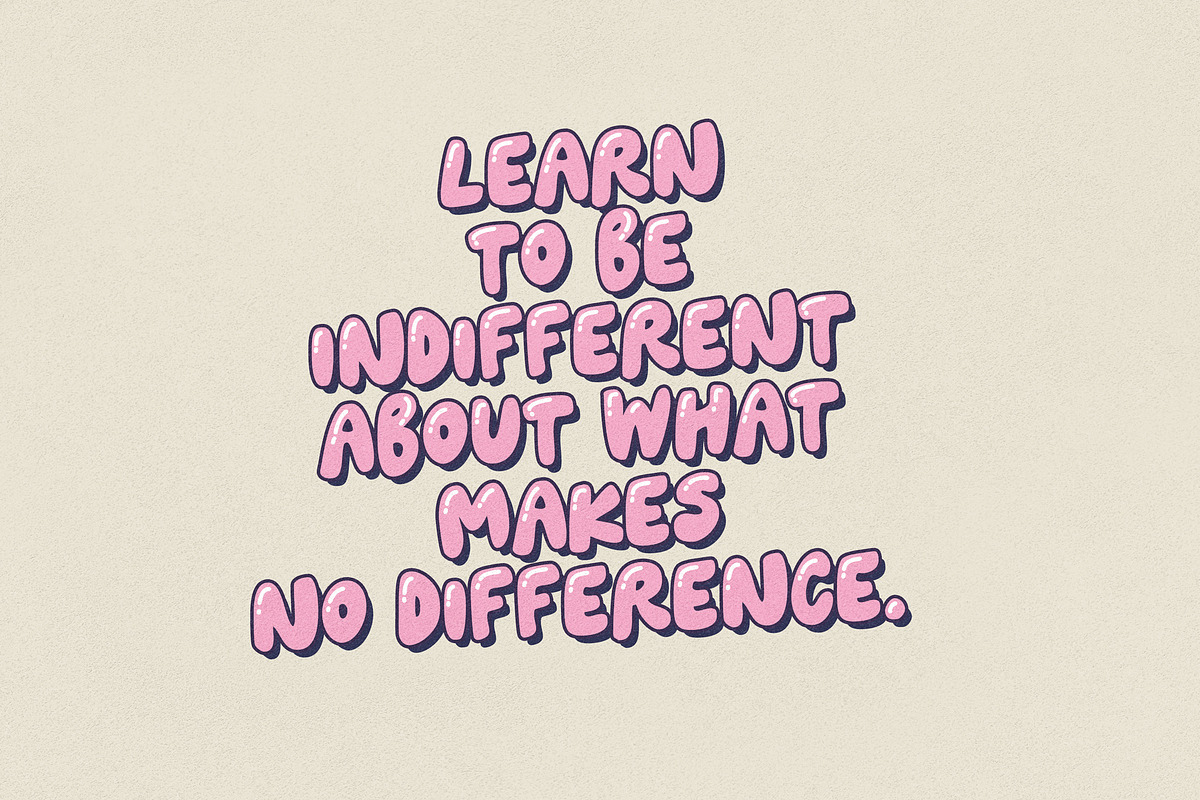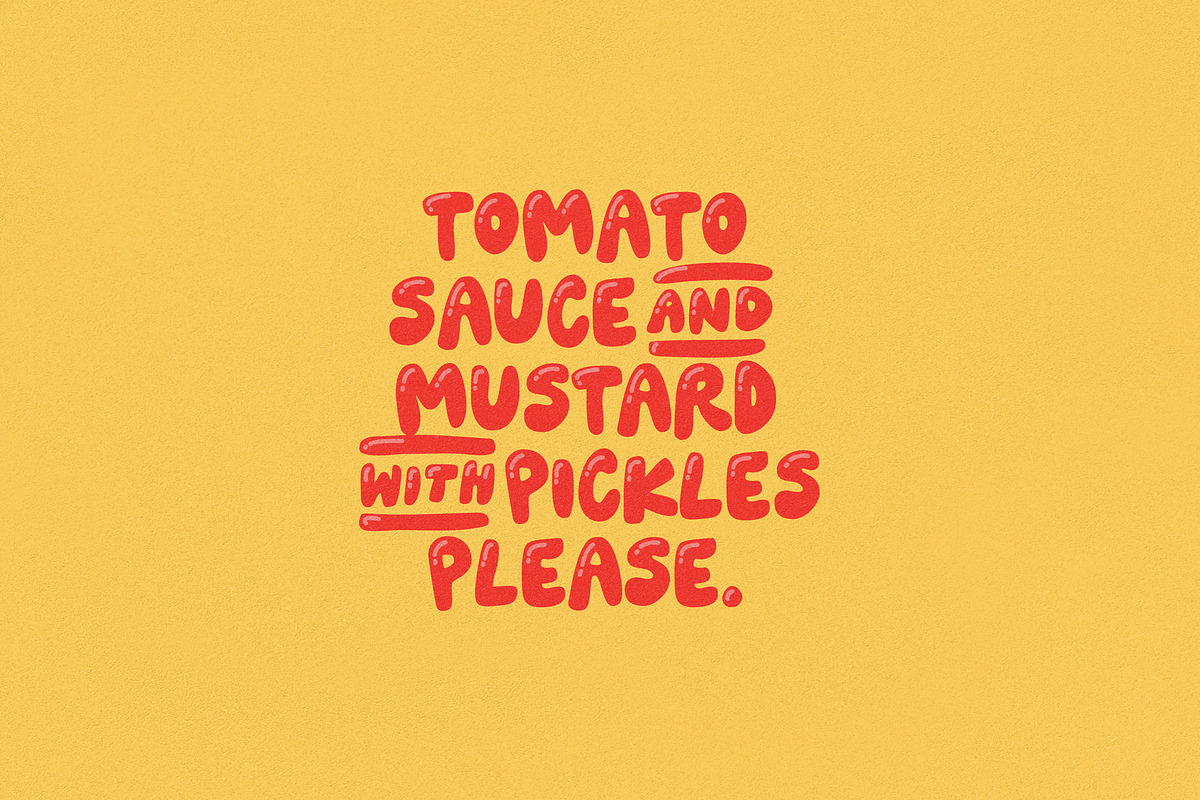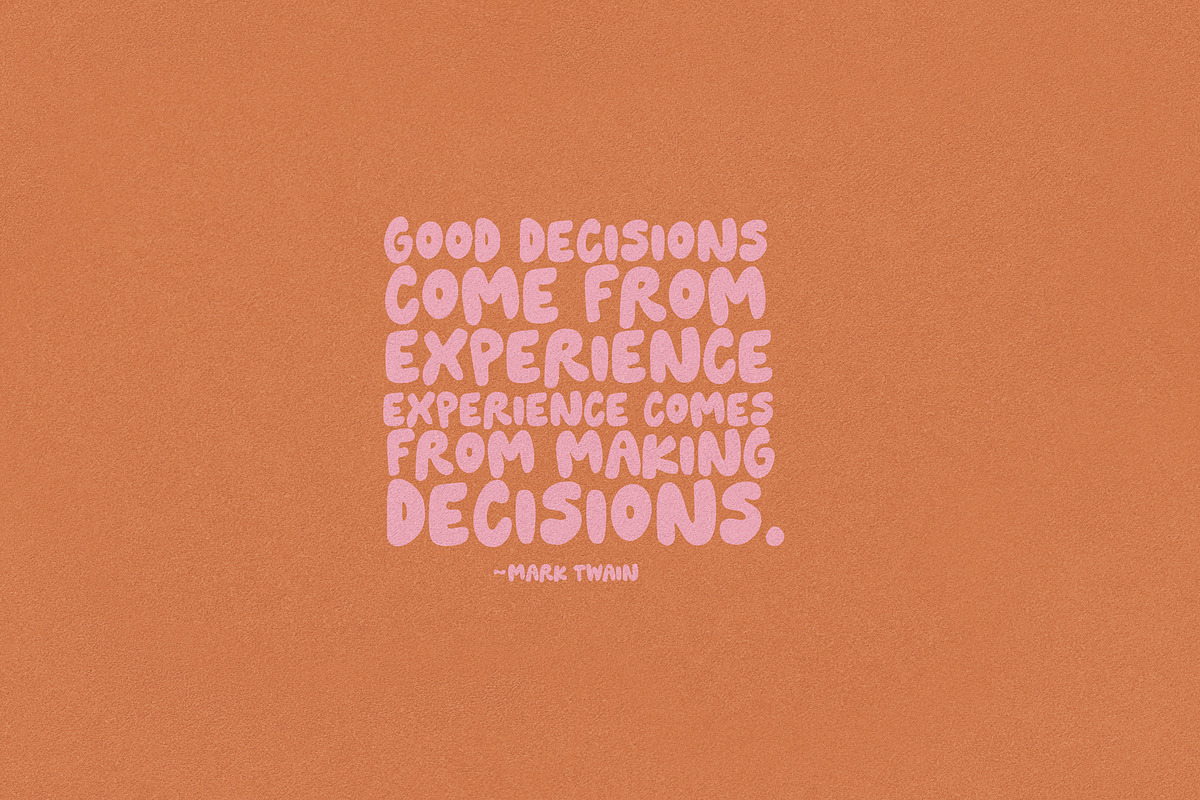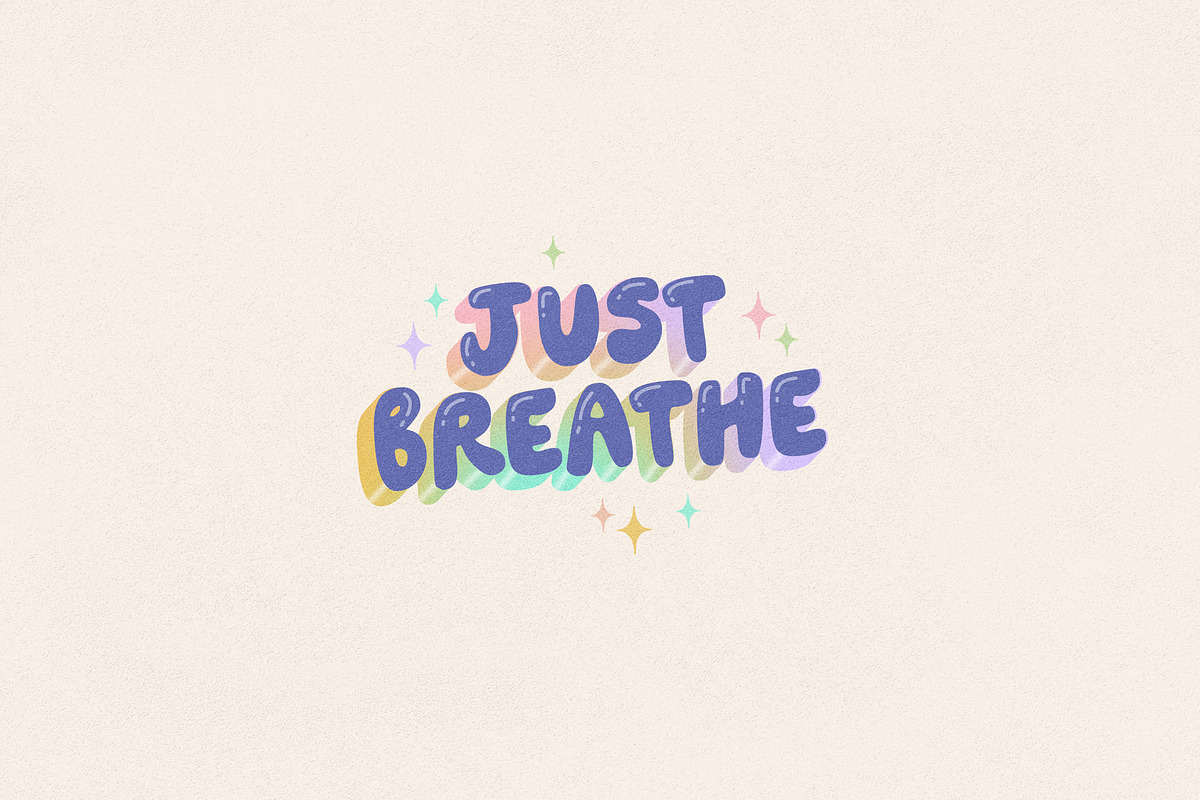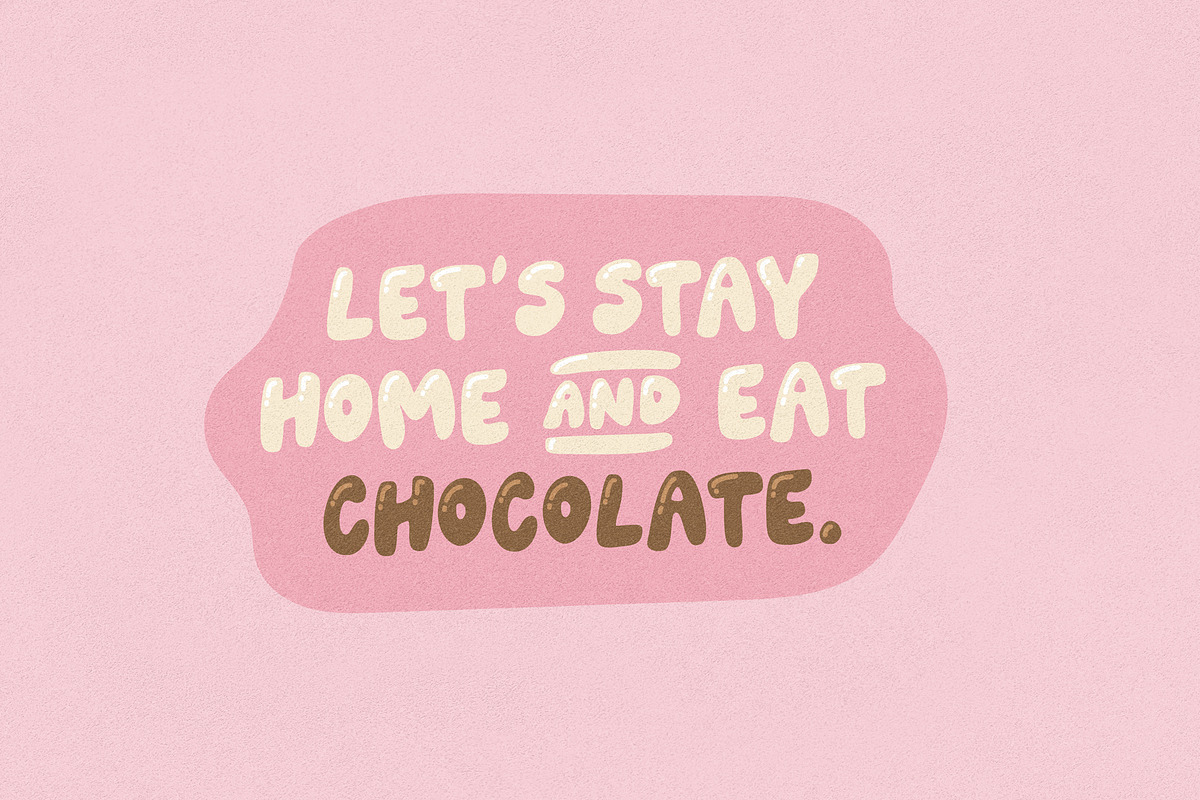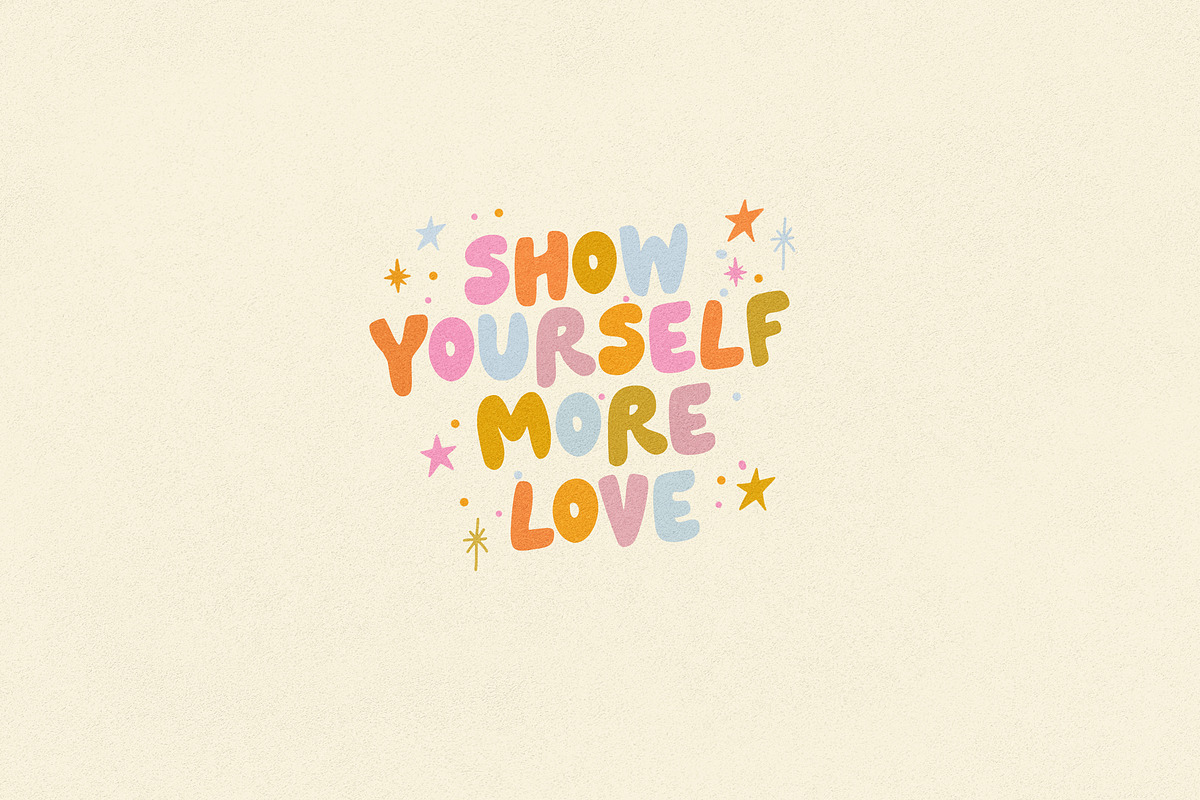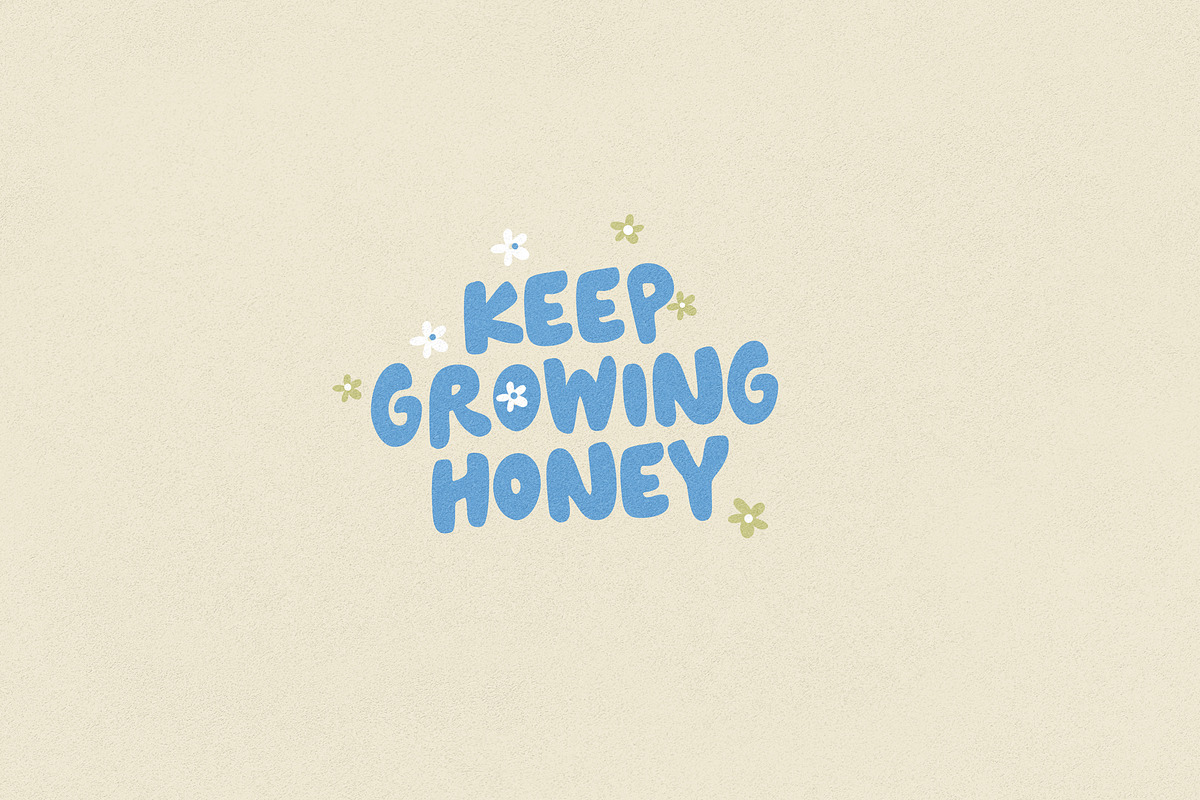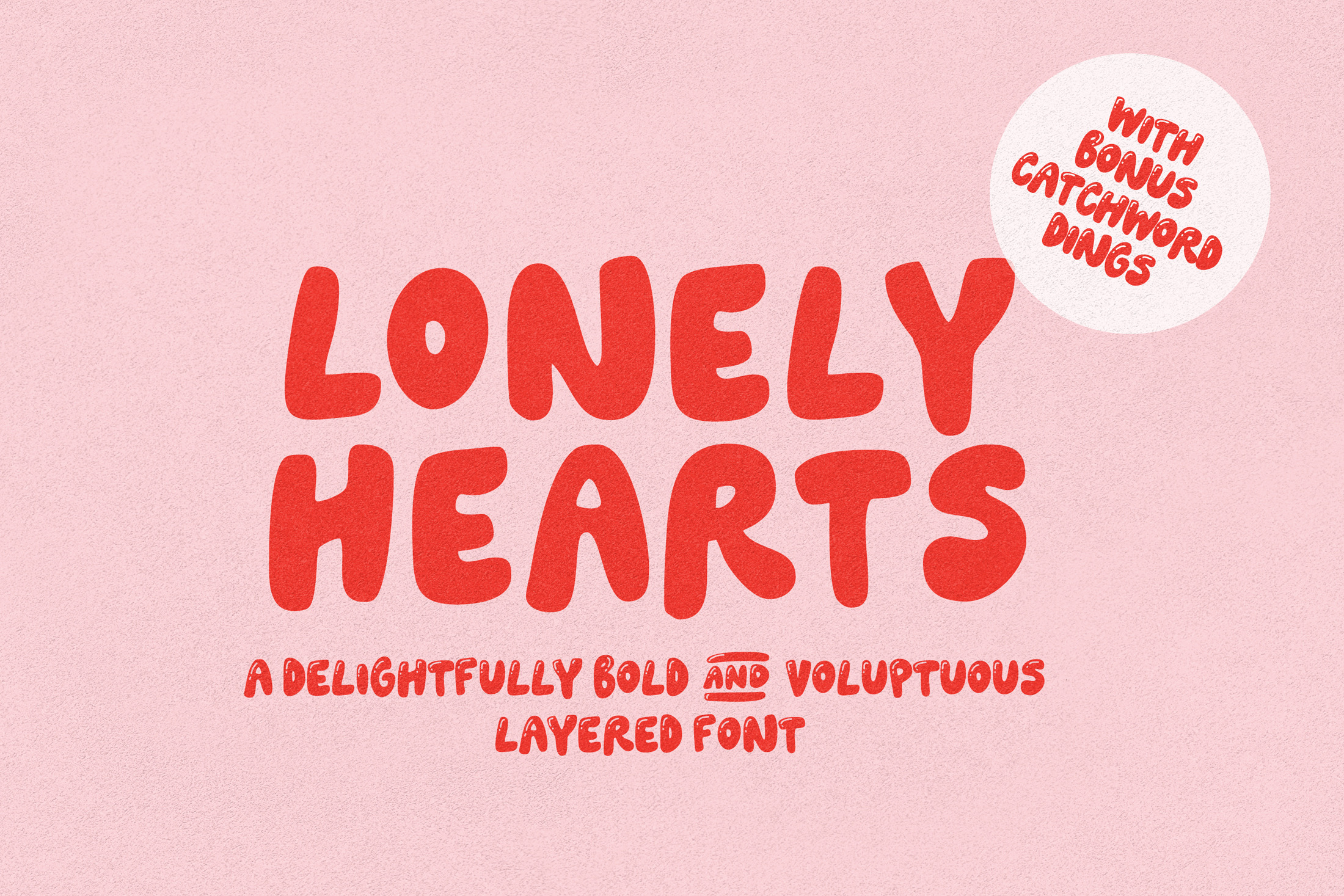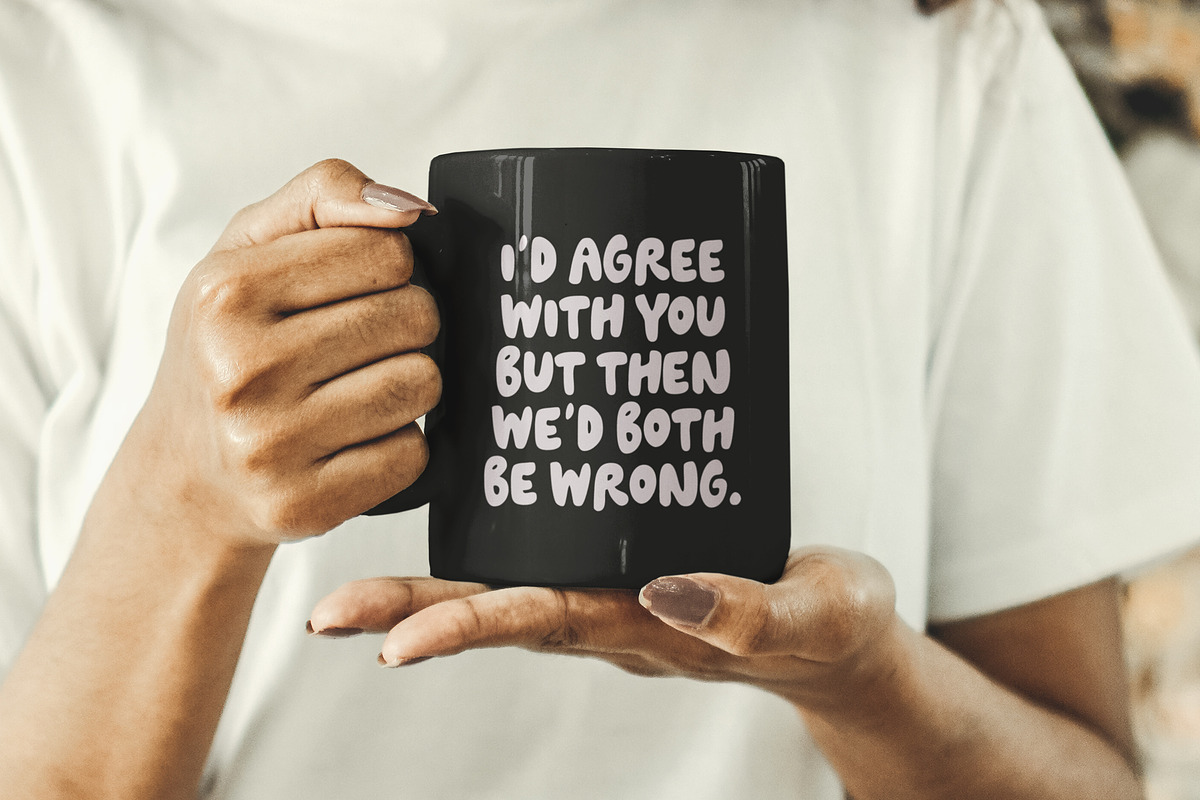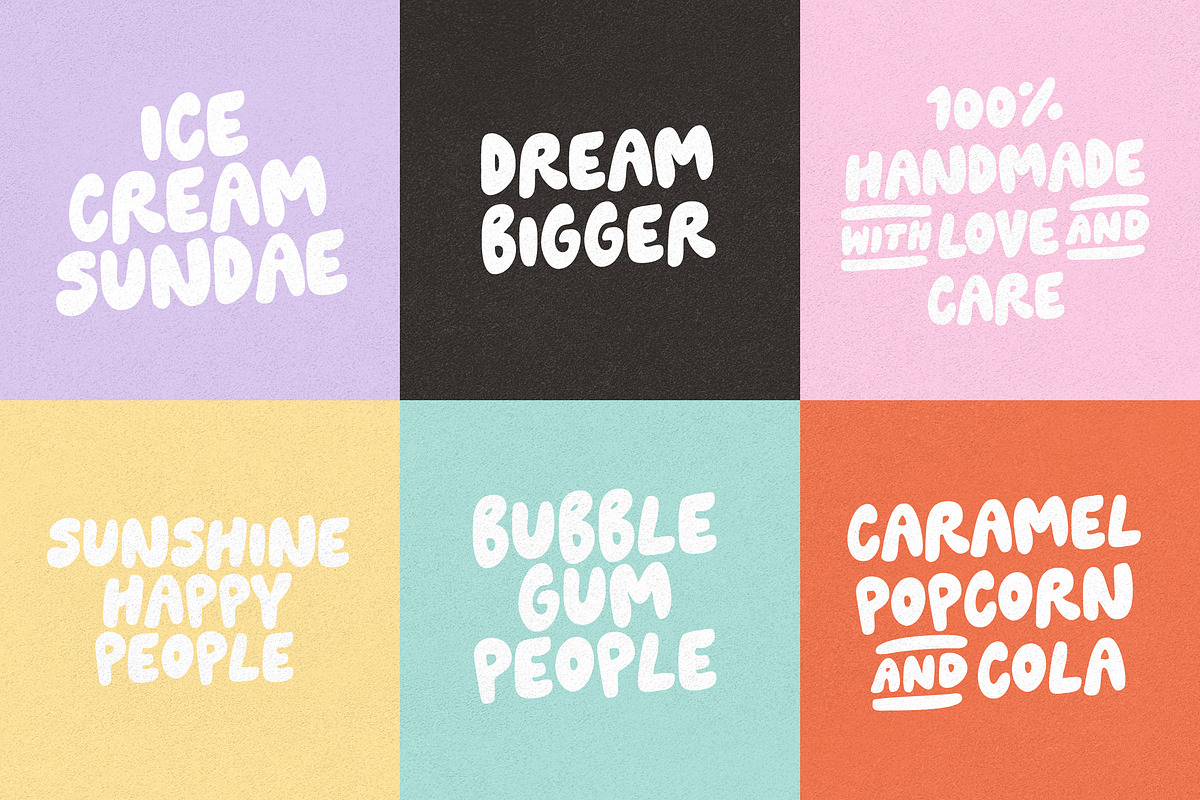
Lonely Hearts Layered Font
Say Hello to Lonely Hearts! A fun bubble style font with 2 bonus layered fonts you can add on top for some shine! A thicker shine and a thinner shine are available - take your pick :)
Perfect for playful quotes, packaging, branding, invitations, greeting cards and so much more.